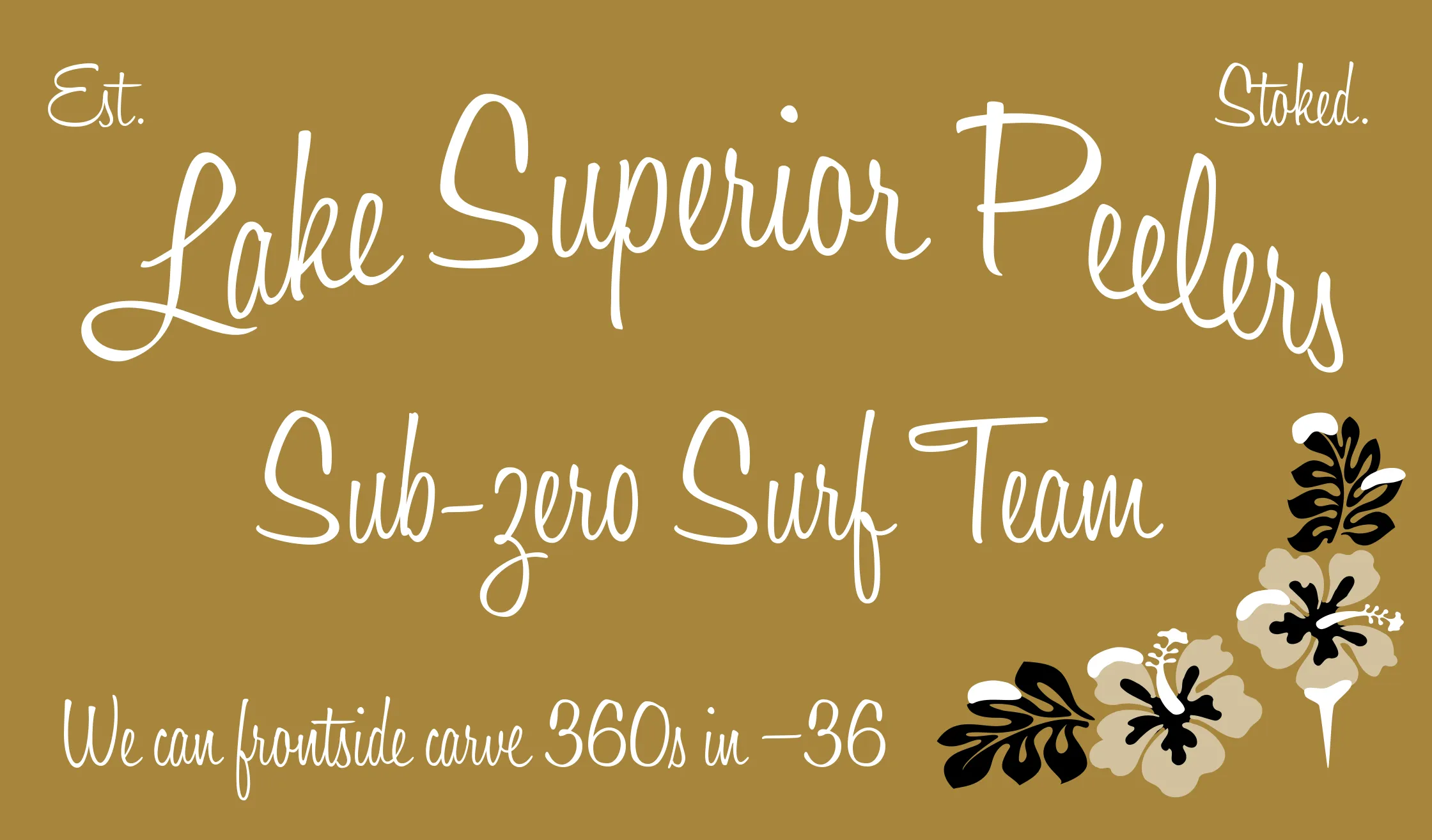
Filmotype Honey Font
The Filmotype Honey Font is perfect for warm vintage advertising, sweet retro bakery signage, cozy mid-century cafe branding, nostalgic family restaurant menus, charming 1950s packaging designs, friendly neighborhood business communications, comforting vintage food labels, heartwarming retro promotions, authentic diner graphics, and sweet vintage lifestyle campaigns.
What makes the Filmotype Honey Font so exciting is its delightful combination of Filmotype authenticity with warm honey sweetness that creates an irresistibly inviting typeface perfect for brands seeking to communicate comfort, warmth, and genuine mid-century hospitality. This charming typeface features smooth Filmotype construction, honey-sweet character proportions, and warm mid-century design elements that perfectly capture the essence of comforting vintage culture and sweet commercial hospitality. The font's honey personality and Filmotype warmth make it an exceptional choice for food businesses, comfort brands, and nostalgic projects seeking to communicate sweetness, comfort, and authentic mid-century charm with genuine period appeal.
The Filmotype Honey Font family includes warm variations and sweet alternates, featuring comforting Filmotype weights, honey-inspired character options, and mid-century hospitality styling elements. Each variation maintains the signature sweet appeal while offering different levels of warm expression and Filmotype comfort, giving designers extensive creative possibilities for crafting inviting vintage communications and comforting brand personalities that honor mid-century hospitality and sweetness traditions.
The comforting vintage characteristics of Filmotype Honey Font showcase masterful warm typography preservation, with each letter featuring genuine Filmotype construction elements and honey-sweet design details that enhance its comfort credibility and vintage authenticity. The font's comprehensive character set includes uppercase and lowercase letters, numerals, warm punctuation, and sweet symbols, ensuring complete functionality for diverse comfort projects and international vintage hospitality applications.
Perfectly suited for both digital and print vintage comfort applications, this delightful font maintains its Filmotype character and honey warmth across all sizes and formats. From large-scale vintage bakery displays to detailed sweet packaging designs, Filmotype Honey Font performs exceptionally while preserving its distinctive comforting personality and authentic mid-century honey appeal.